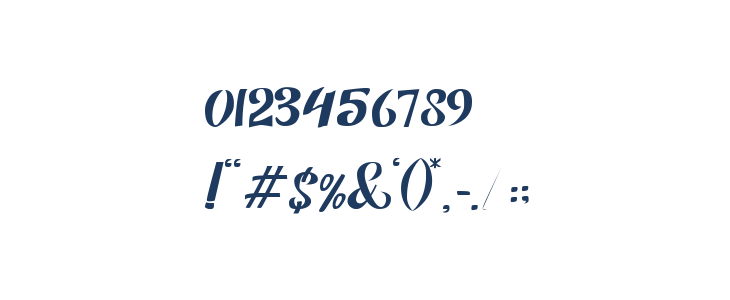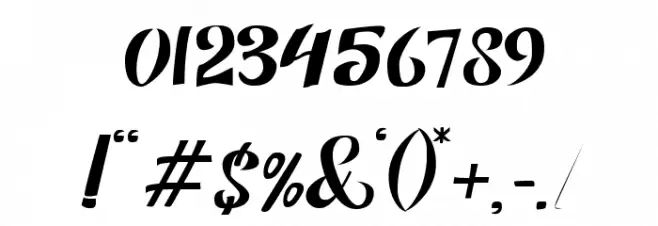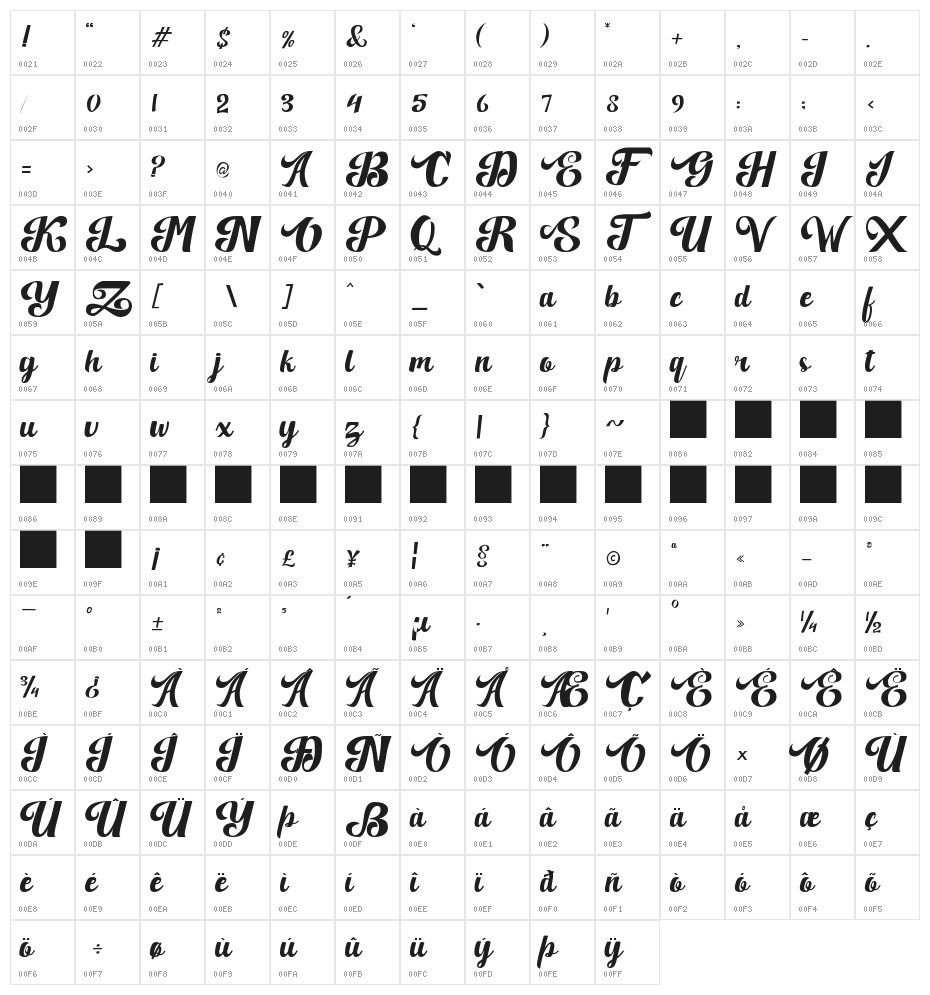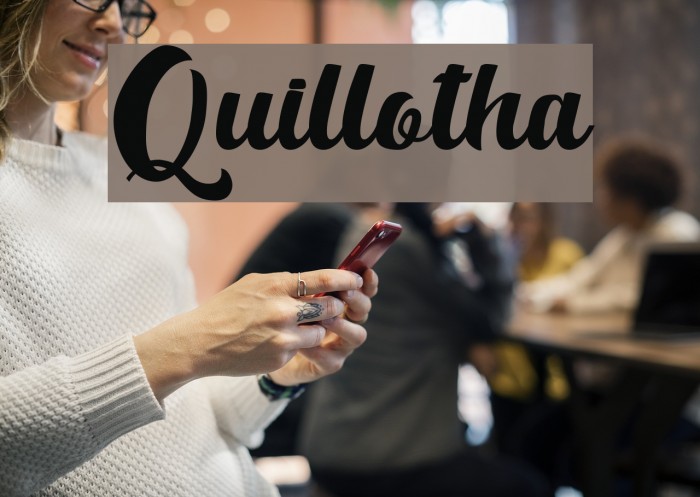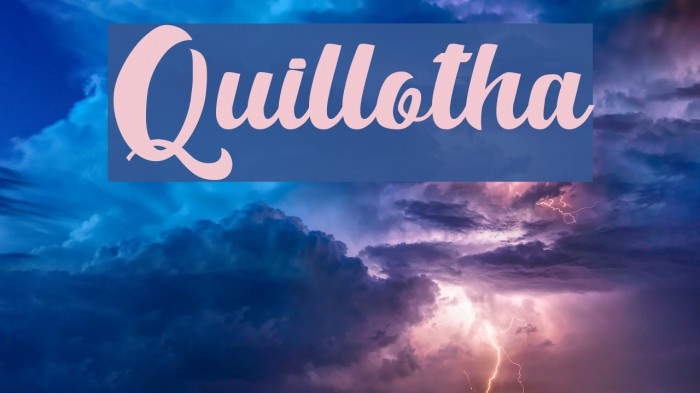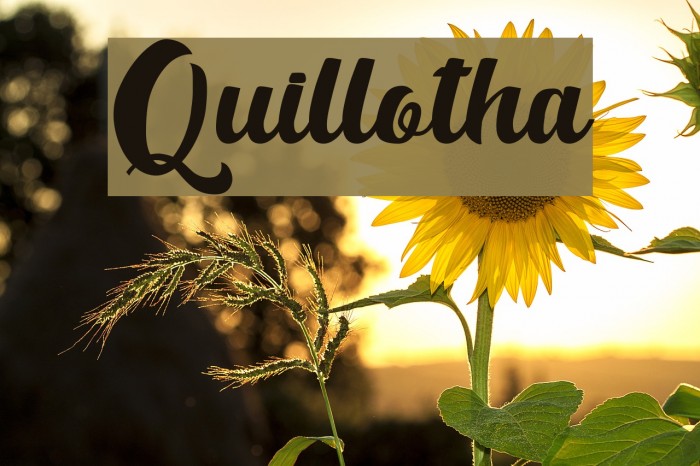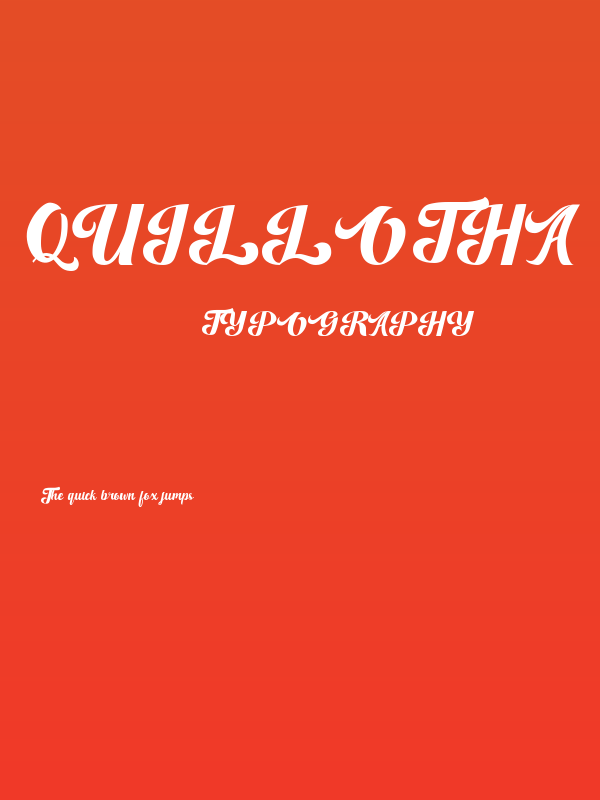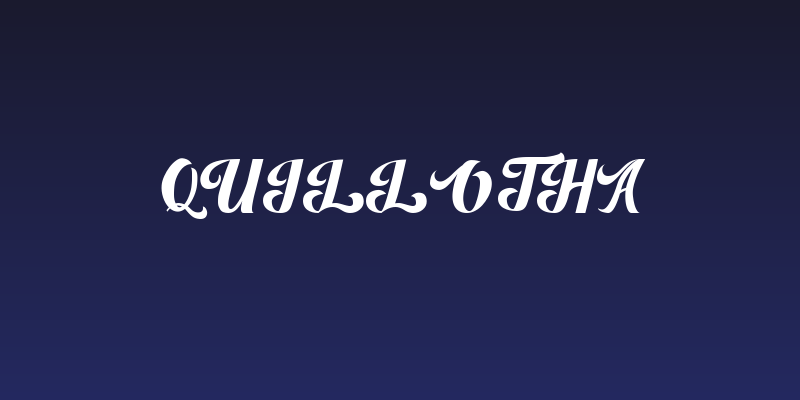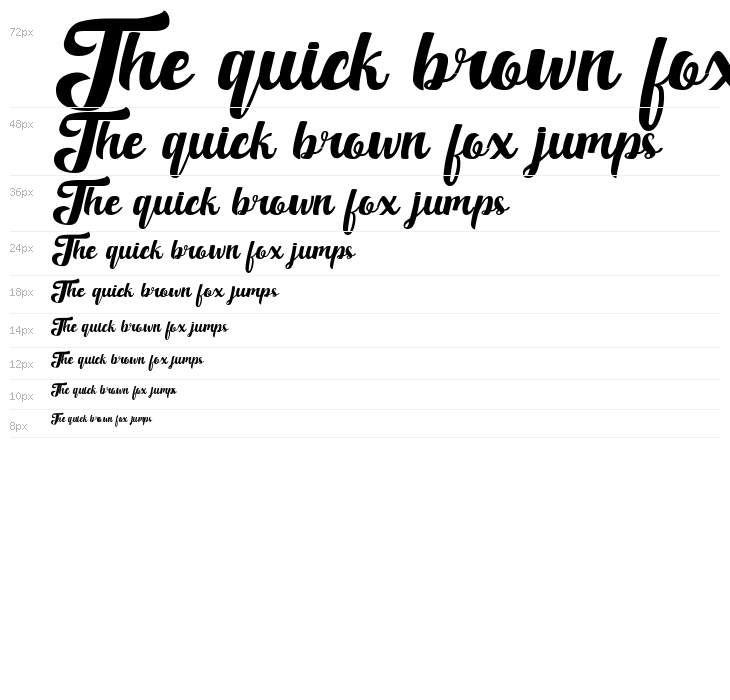
Quillotha Font
Quillotha Description
This font features a bold and expressive script style, characterized by its flowing and connected letterforms. The uppercase letters exhibit a dramatic flair with sweeping curves and elegant loops, while the lowercase letters maintain a consistent rhythm with smooth transitions. The numerals are bold and easily readable, complementing the overall aesthetic. Special characters are designed with the same attention to detail, ensuring a cohesive look across all glyphs. This font's dynamic and artistic nature makes it suitable for projects that require a touch of elegance and creativity.
| Proposed Projects | Ideal for wedding invitations, branding, logo design, and artistic posters. |